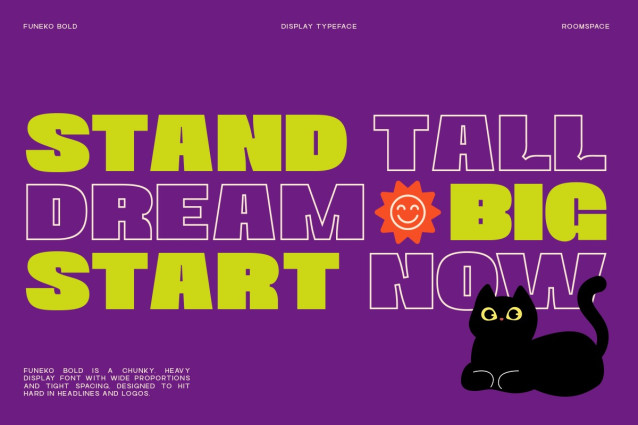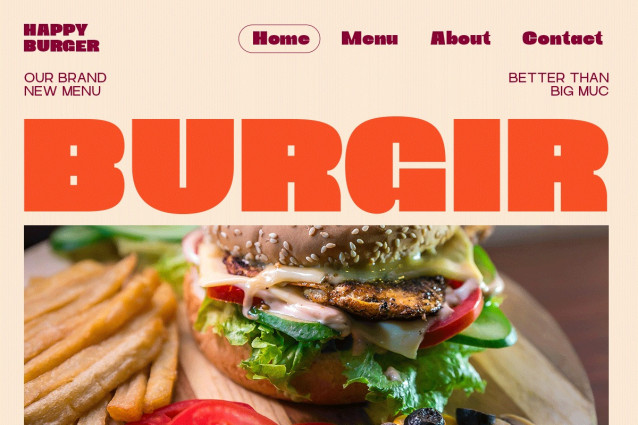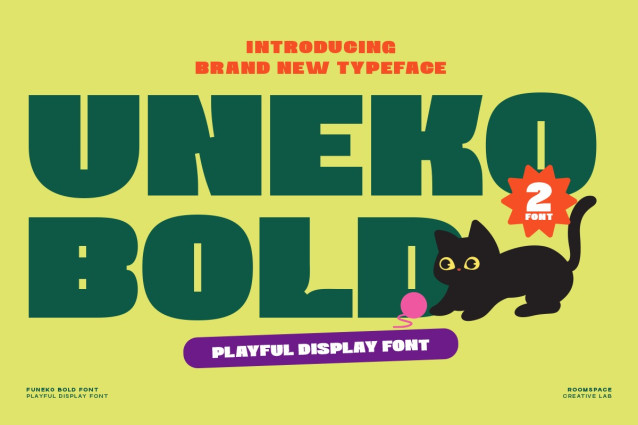
Uneko Bold Font
Uneko Bold Font is a playful display typeface with chunky shapes and a cute cartoon personality. Designed for children’s branding, colorful packaging, posters, and character-based design, this font brings joy and bold expression to every project. This set includes 2 styles, offering flexibility for titles, illustrations, and fun storytelling visuals.